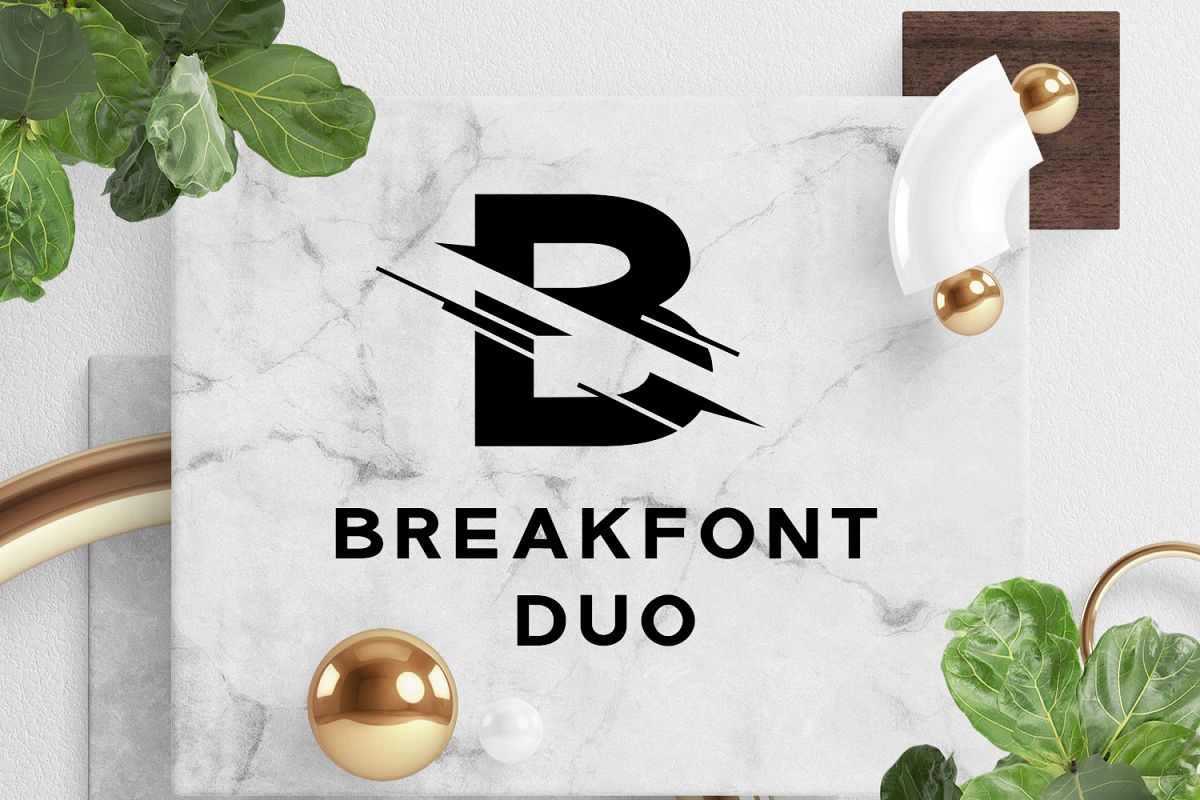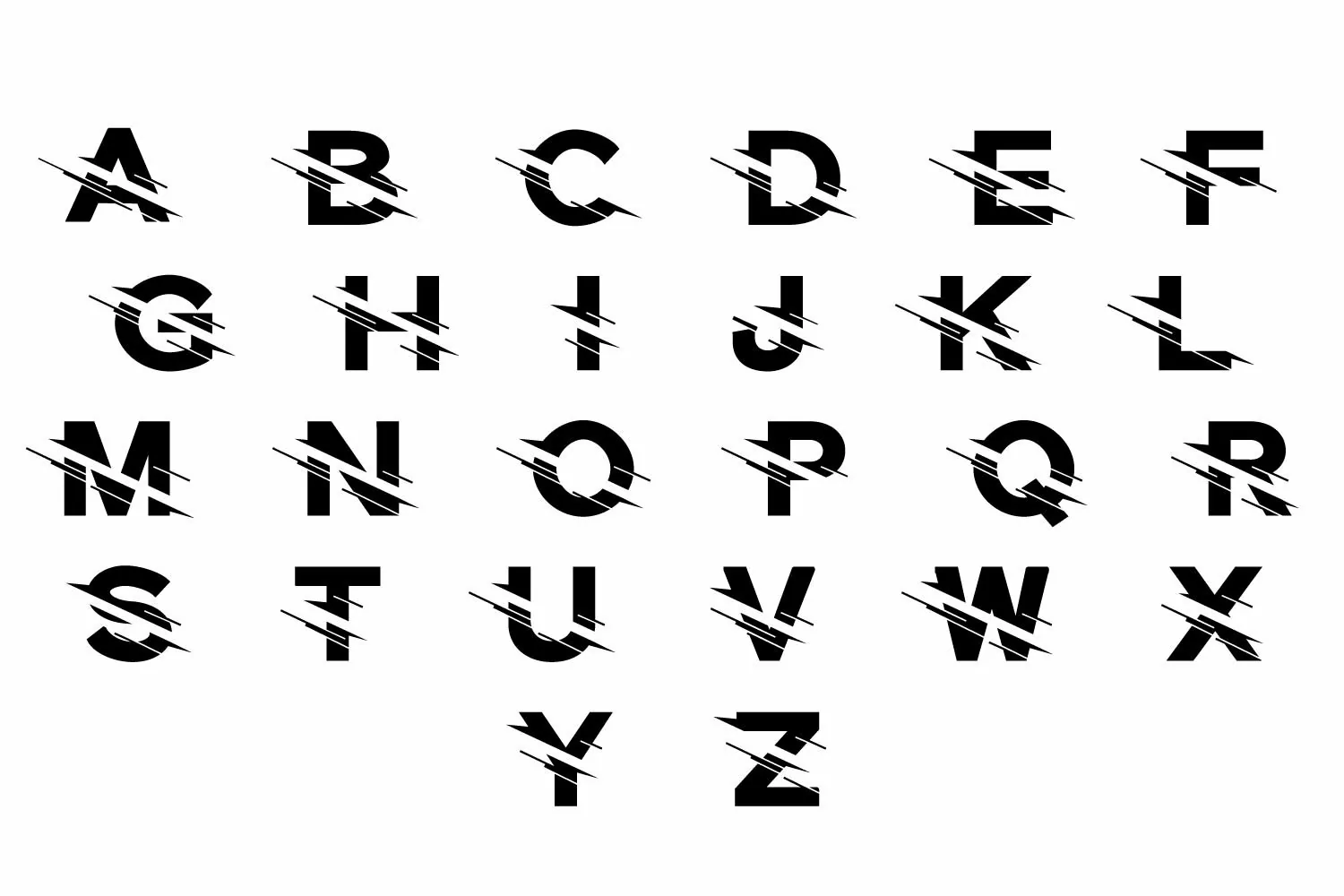
Split Monograms Font
BreakFont Duo is a modern and beautiful typeface. This font is great for header text, logos or anything which needs attractive text or design. The Capital letters of font contains letters with lines and the small letters contains original letters with no line.